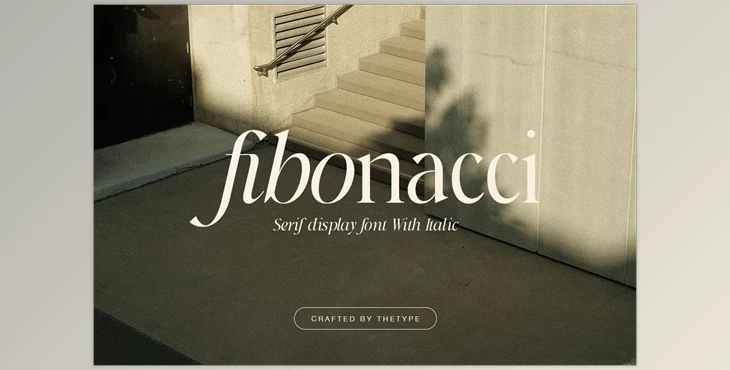
Fibonacci | Serif With Italic Font Creative Market - 286703919:
The Fibonacci font is a modern serif typeface inspired by the Fibonacci sequence. It offers a versatile design that can appear classic and conservative in its italic form, making it ideal for body text. At the same time, it can be expressive and contemporary through the use of alternative characters and ligatures, allowing for unique and creative typographic designs. By experimenting with its features, users can achieve a distinctive look for their projects.
- Alternates: Refers to alternate versions of characters or glyphs in a typeface, allowing for different visual styles or shapes. These variations provide designers with options to customize the appearance of text, enhancing creativity and diversity in typographic design.
- Ligature: A typographic feature that combines two or more characters into a single glyph, improving the aesthetics and readability of certain letter combinations. Ligatures often address spacing or collision issues in text, making the flow of text more visually appealing.
- Multilingual: Supports multiple languages by including characters and symbols needed for various writing systems, ensuring that the font or typeface is accessible and functional across different languages and regions. This feature expands the font's usability to a global audience.